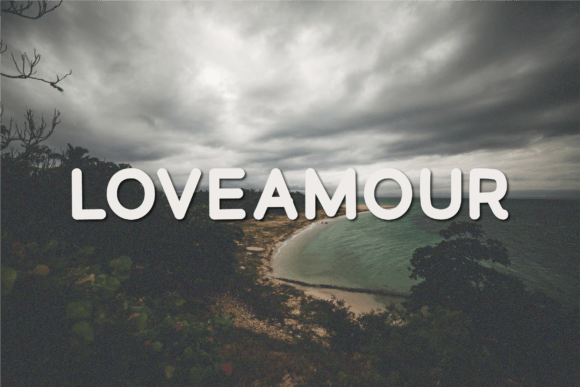
Indulge in the charming embrace of Loveamour Font, a captivating sans serif typeface that exudes joy and playfulness. Crafted by the esteemed Becraft, this all-caps font is your secret weapon for creating beautiful designs that speak to the heart.
Dive into a world of creativity with Loveamour Font, where every character dances with a whimsical spirit. Whether you're crafting heartwarming greeting cards, adding a touch of whimsy to your digital designs, or captivating your audience with stunning presentations, this font has the power to transform your creations into masterpieces.
Loveamour Font's playful nature makes it the perfect companion for spreading love and cheer on Valentine's Day. Its bold, all-caps design adds a touch of excitement to any project, making your words come alive with emotion.
But Loveamour Font's versatility extends far beyond the confines of Valentine's Day. Its charming character and playful style make it an ideal choice for a wide range of projects, including crafting, digital design, and presentations. Let your imagination soar as you explore the endless possibilities that await you with Loveamour Font.
Don't settle for ordinary fonts that fail to capture the essence of your creativity. Embrace the extraordinary with Loveamour Font, a typeface that will ignite your passion for design and bring a touch of magic to every project you undertake.